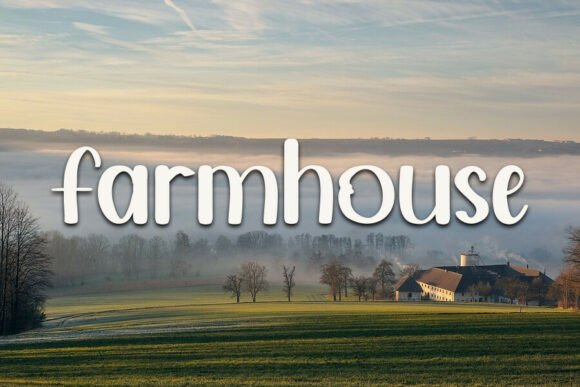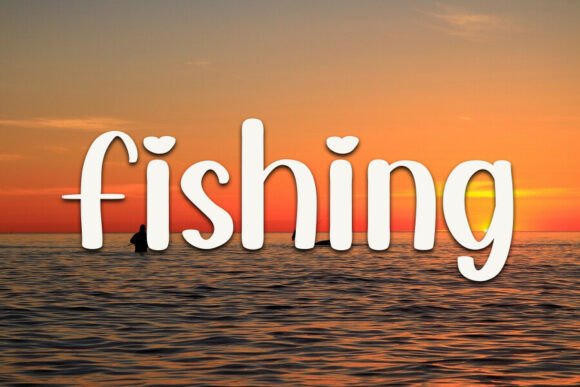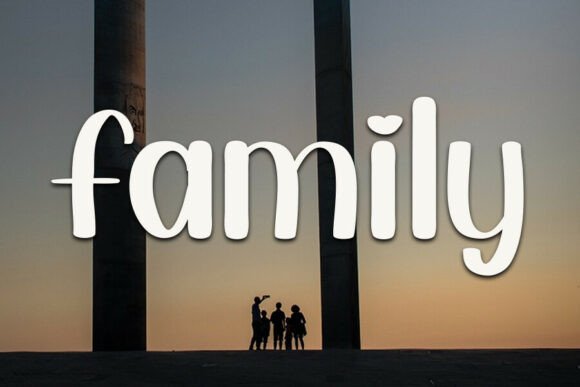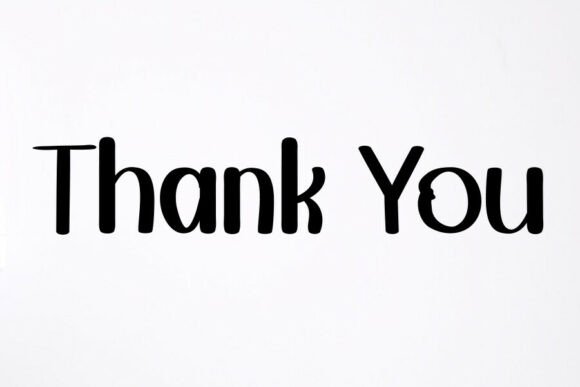
The Perfect Balance of Style and Substance: Unpacking the Budget Font
Have you ever been stuck on a design project, pouring over fonts and feeling like nothing quite fits the vibe you’re going for? I know I have – it’s that frustrating moment when you’re trying to convey a specific emotion or atmosphere, but the right words just aren’t coming together. That’s where the Budget Font comes in, a neat and casual handwritten font that effortlessly blends clarity with a relaxed, approachable feel.
This versatile font is designed for designers who want to create modern yet laid-back branding, packaging, and headlines that speak to their audience. With its clean lines and friendly letterforms, the Budget Font is a valuable addition to any designer’s toolkit – whether you’re working on a small business logo or a large-scale marketing campaign.
Budget Font Key Features
- Font Family: A sans-serif font designed for readability and clarity, making it ideal for body text in publications and digital media.
- Language Support: Supports a wide range of languages, including Latin, Cyrillic, and Greek, making it suitable for global publications and websites.
- Weight and Style: Available in light, regular, bold, and italic styles, allowing for flexibility in design and typography.
Budget Font Review
Overall, I’m impressed with the affordability and accessibility of Budget Font. It’s perfect for designers working on a tight budget or those just starting out.
- ✨ Affordable pricing: Budget Font offers a range of font styles at an unbeatable price point.
- ✨ Wide character set: The font includes a comprehensive character set, making it suitable for a variety of projects.
- ⚠️ Limited customization options: Budget Font doesn’t offer as many customization options as some other fonts on the market.
- ⚠️ Not ideal for high-end projects: Due to its affordability, Budget Font may not be the best choice for high-end or luxury projects.
Overall, I’d recommend Budget Font for designers on a tight budget or those looking for a simple, affordable font solution. While it may not offer the same level of customization or support as more expensive options, it’s a solid choice for everyday design projects.
Tips for Getting the Most Out of Budget Font
Here are a few tips to help you get the most out of Budget Font:
- Use it for headings and titles to add a touch of elegance to your designs.
- Combine Budget Font with other fonts to create a unique and eye-catching typography style.
Here are a few common use cases for Budget Font:
- Business cards and resumes
Montserrat is a modern sans-serif font designed for digital use. It is a great alternative to Budget Font for designers who want a clean and minimalist aesthetic. Montserrat is more versatile and has a wider range of weights and styles, making it suitable for a variety of design projects.
Comparison to Budget Font: Montserrat is more modern and sleek, while Budget Font is more utilitarian. Montserrat is also more suitable for digital use, while Budget Font is more commonly used for print materials.
Lato is a sans-serif font designed for use in digital media. It is a great alternative to Budget Font for designers who want a friendly and approachable font. Lato is more legible and has a softer feel, making it suitable for websites and other digital applications.
Comparison to Budget Font: Lato is more legible and has a softer feel, while Budget Font is more utilitarian. Lato is also more suitable for digital use, while Budget Font is more commonly used for print materials.
Open Sans is a modern sans-serif font designed for digital use. It is a great alternative to Budget Font for designers who want a clean and minimalist aesthetic. Open Sans is more versatile and has a wider range of weights and styles, making it suitable for a variety of design projects.